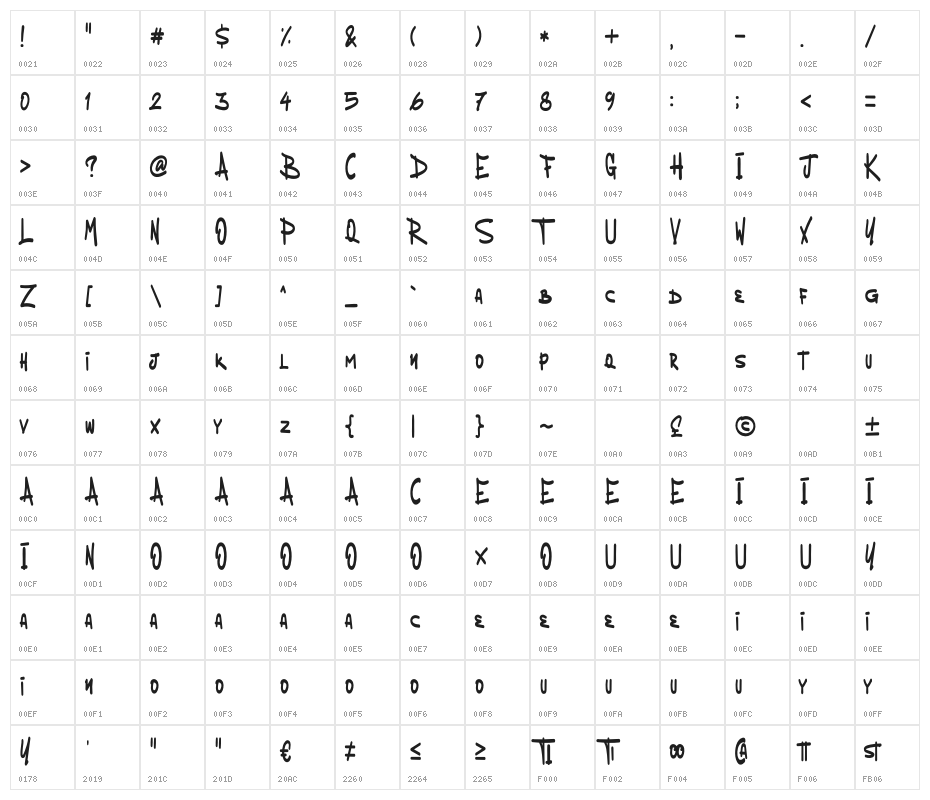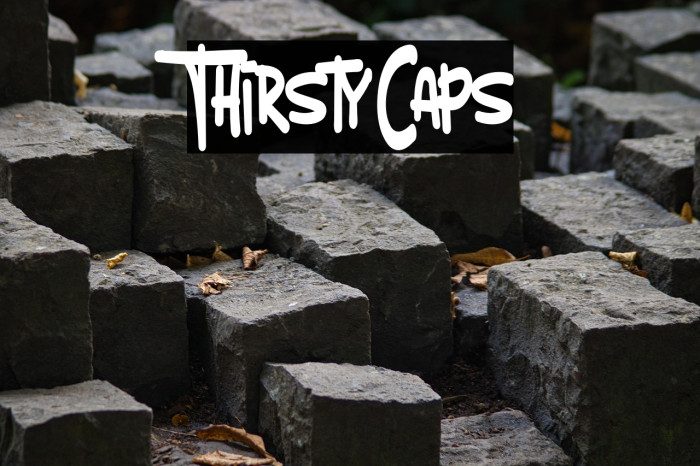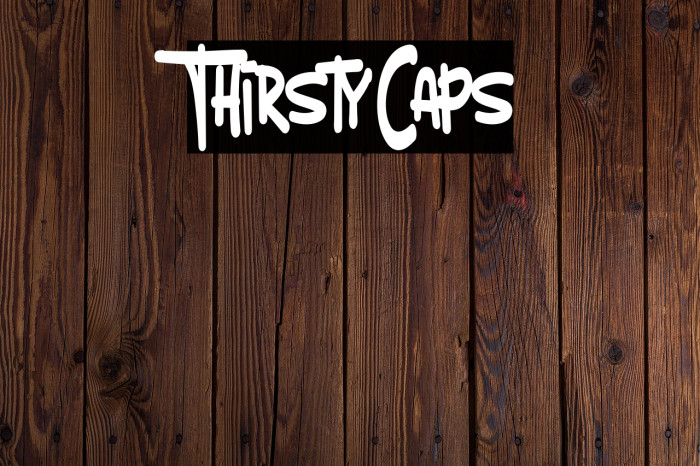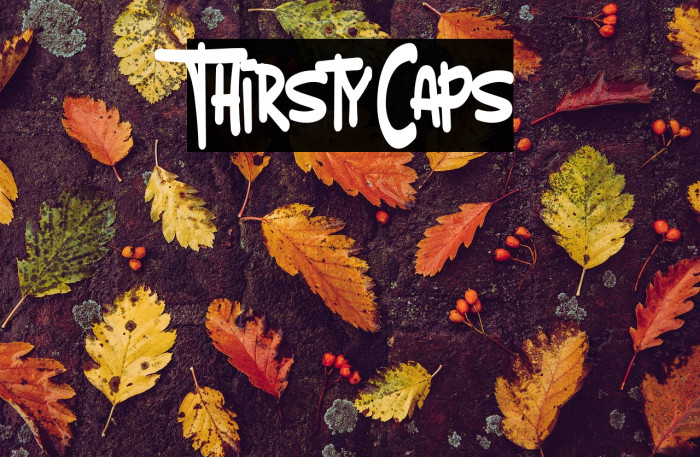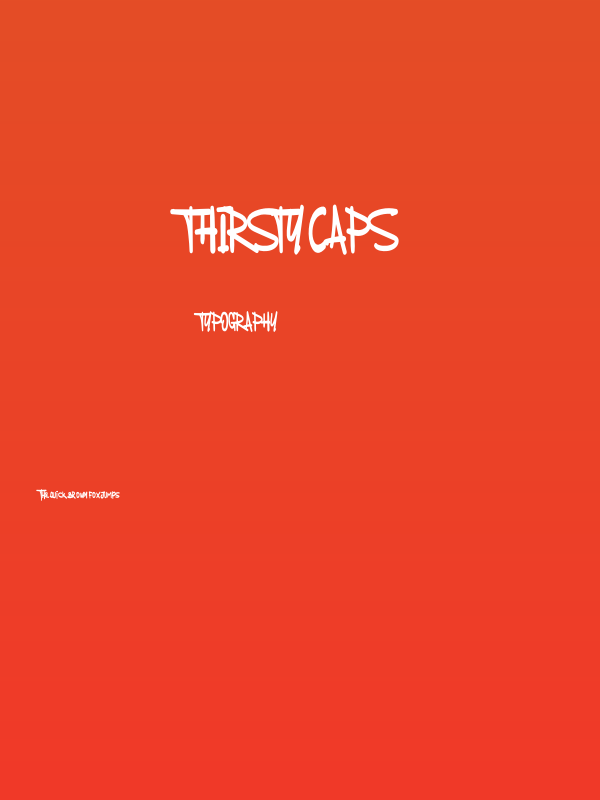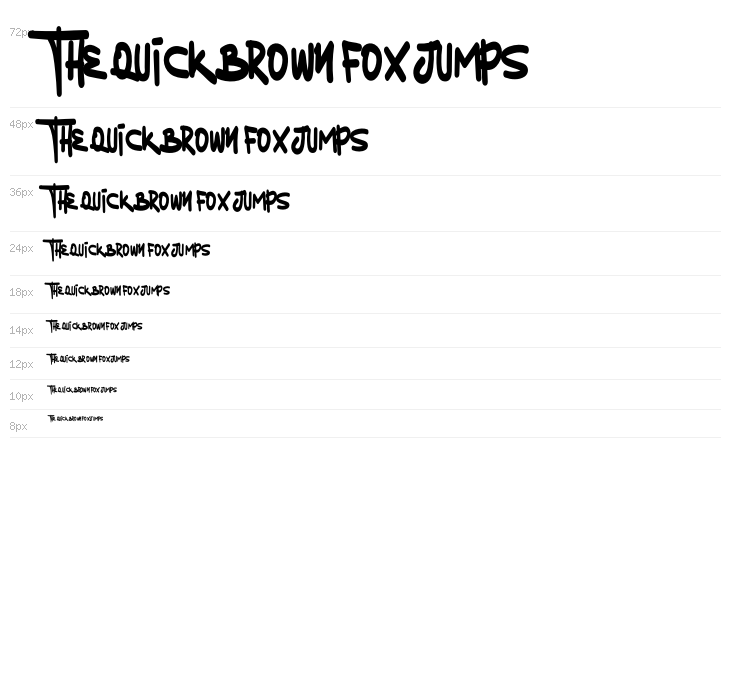
Thirsty Caps Font
Thirsty Caps Description
This font features a bold, energetic style with a hand-drawn appearance. The letters are slightly slanted, giving a dynamic and informal feel. The strokes are thick and consistent, with rounded edges that add a playful touch. The uppercase and lowercase letters maintain a cohesive look, while the numbers and special characters complement the overall design. This font's unique style makes it stand out, ideal for projects that require a personal and creative touch.